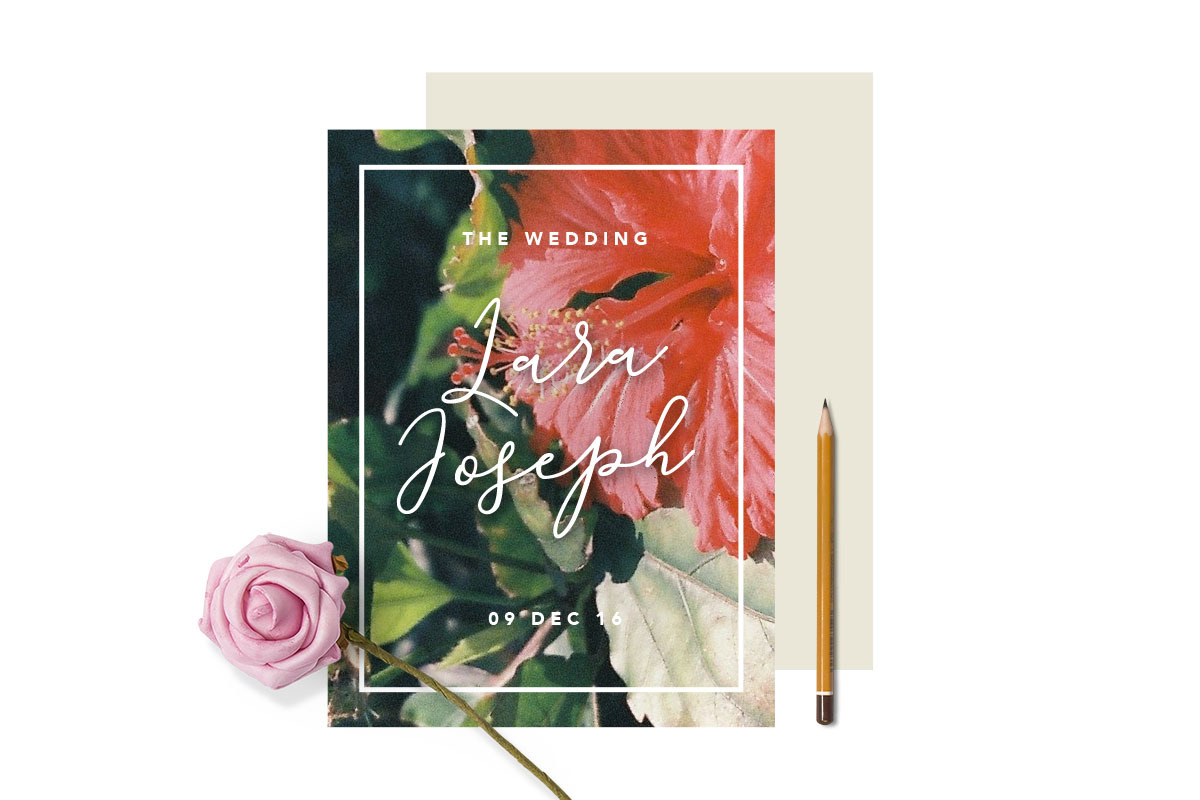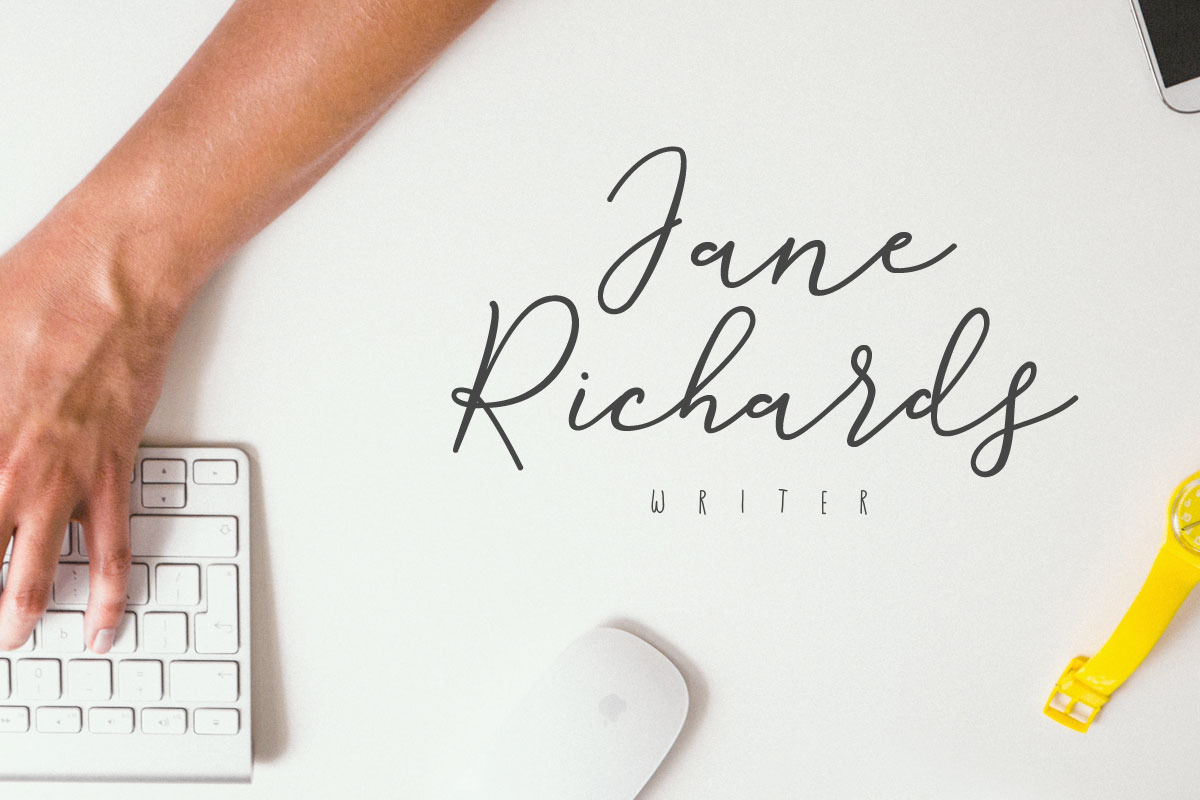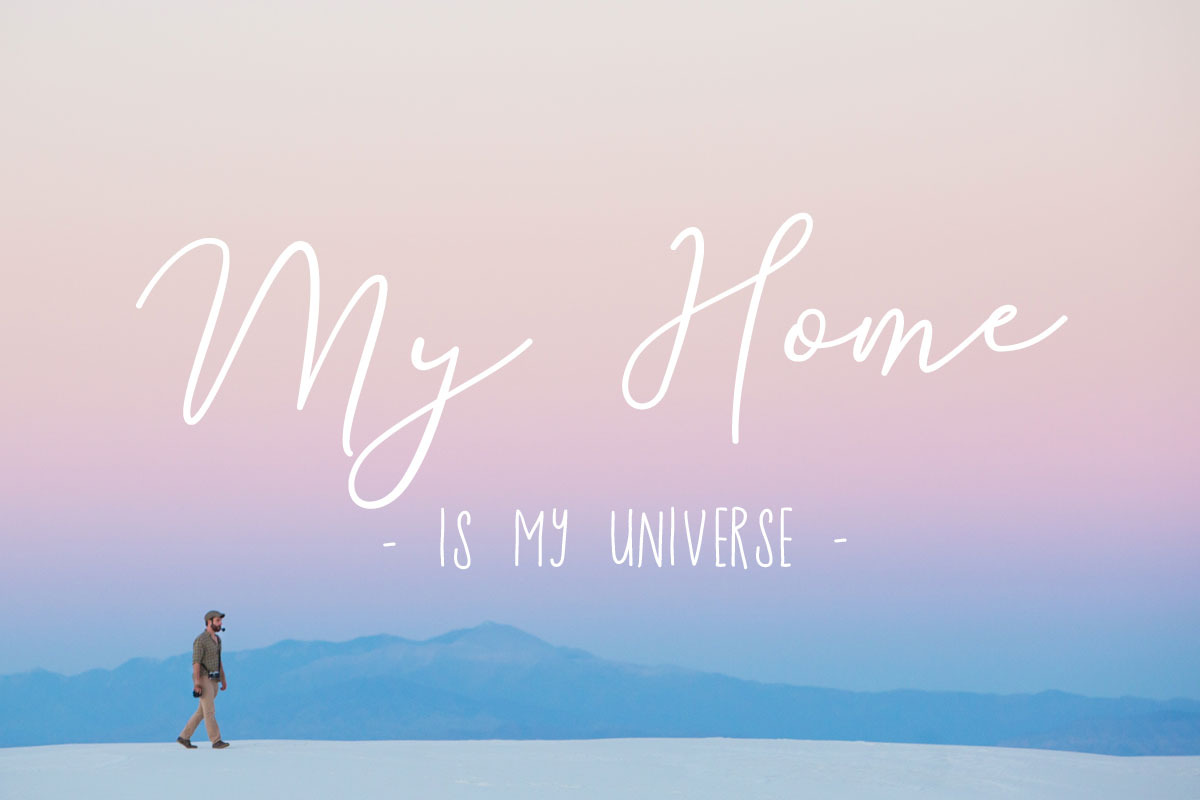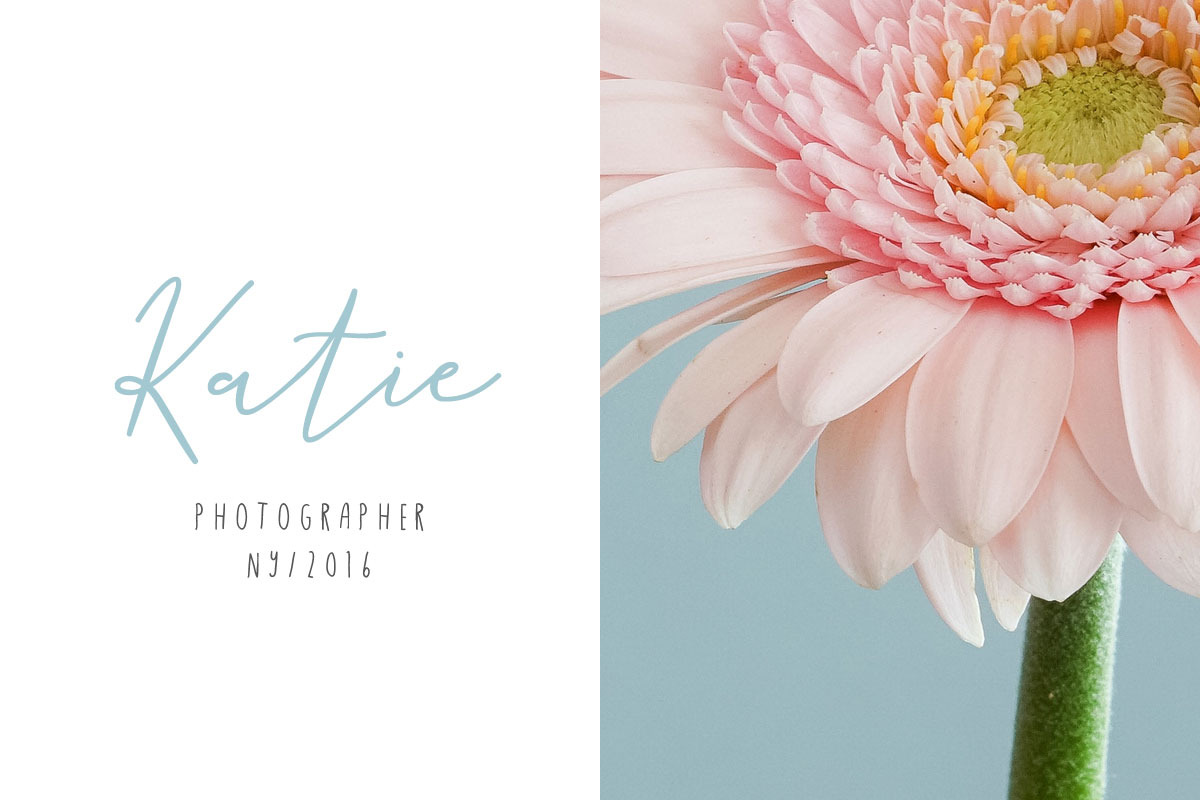
Revel Font
Revel Font by vuuuds is a font selected for branding, posters, packaging, typography.
Why Revel Font is worth a look
Revel Font by vuuuds fits naturally into Branding, posters, packaging, typography.